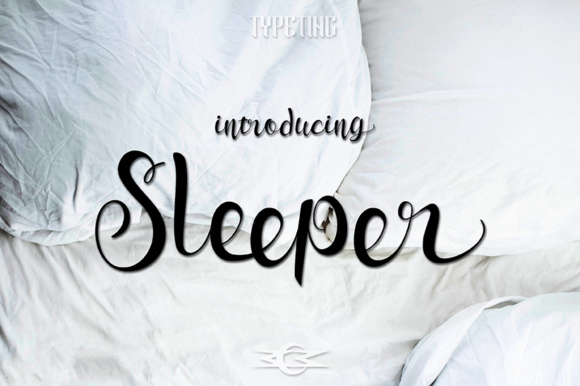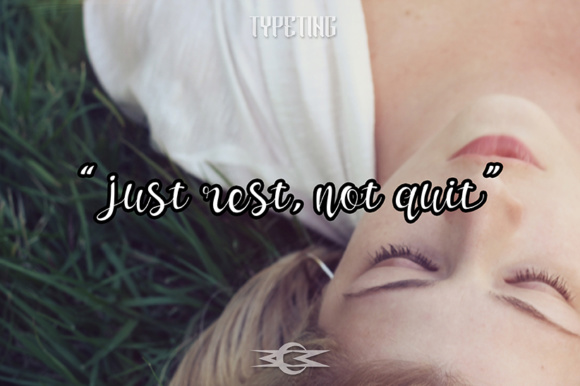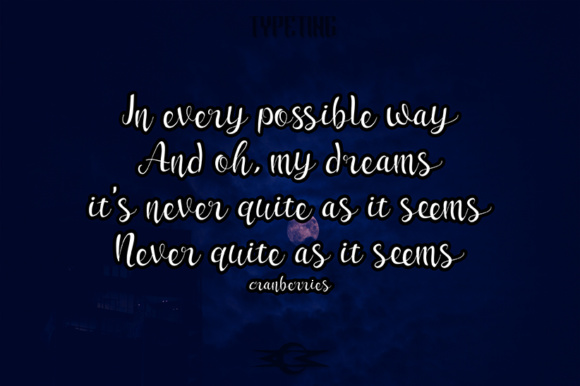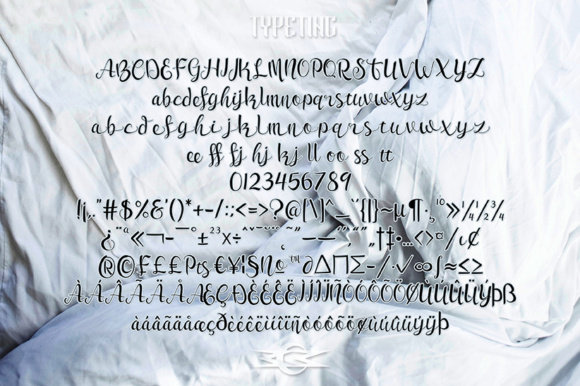
Sleeper Font
About Sleeper Font
The sleeper is a beautiful and simple handwritten script font. It’s perfect for book covers, wedding invitations, and much more!